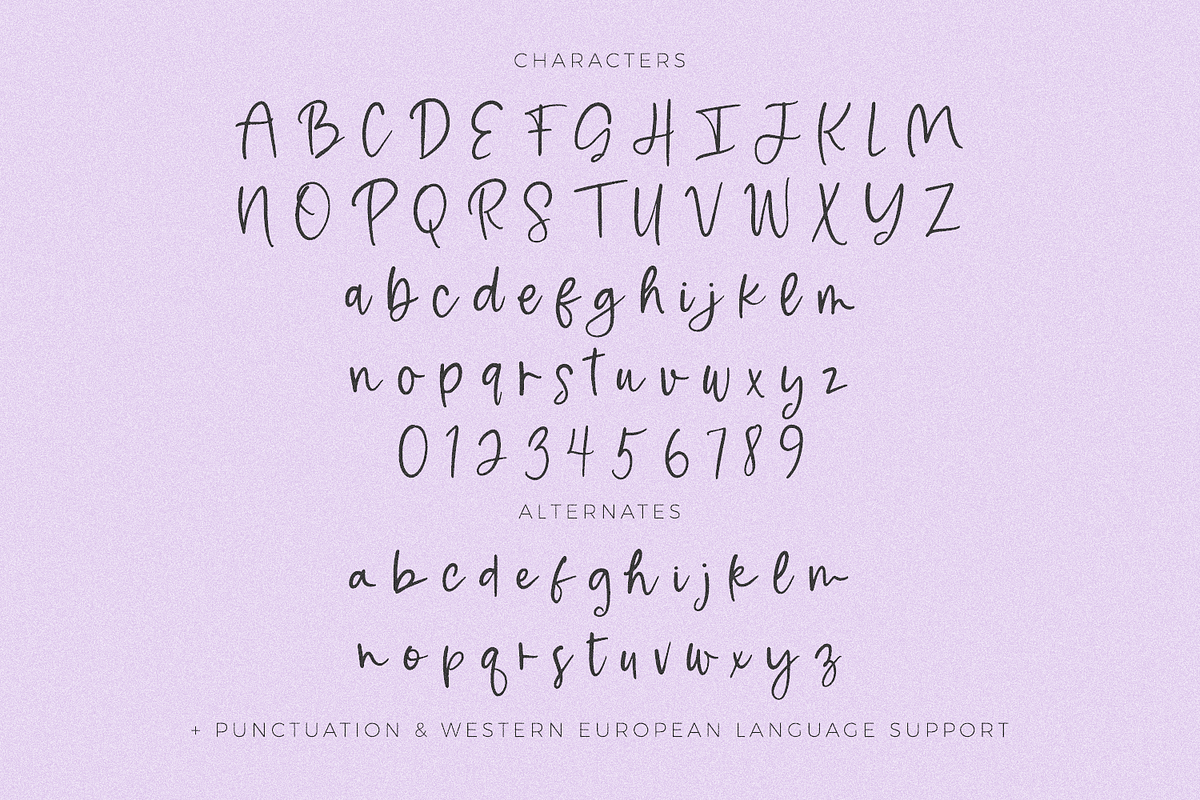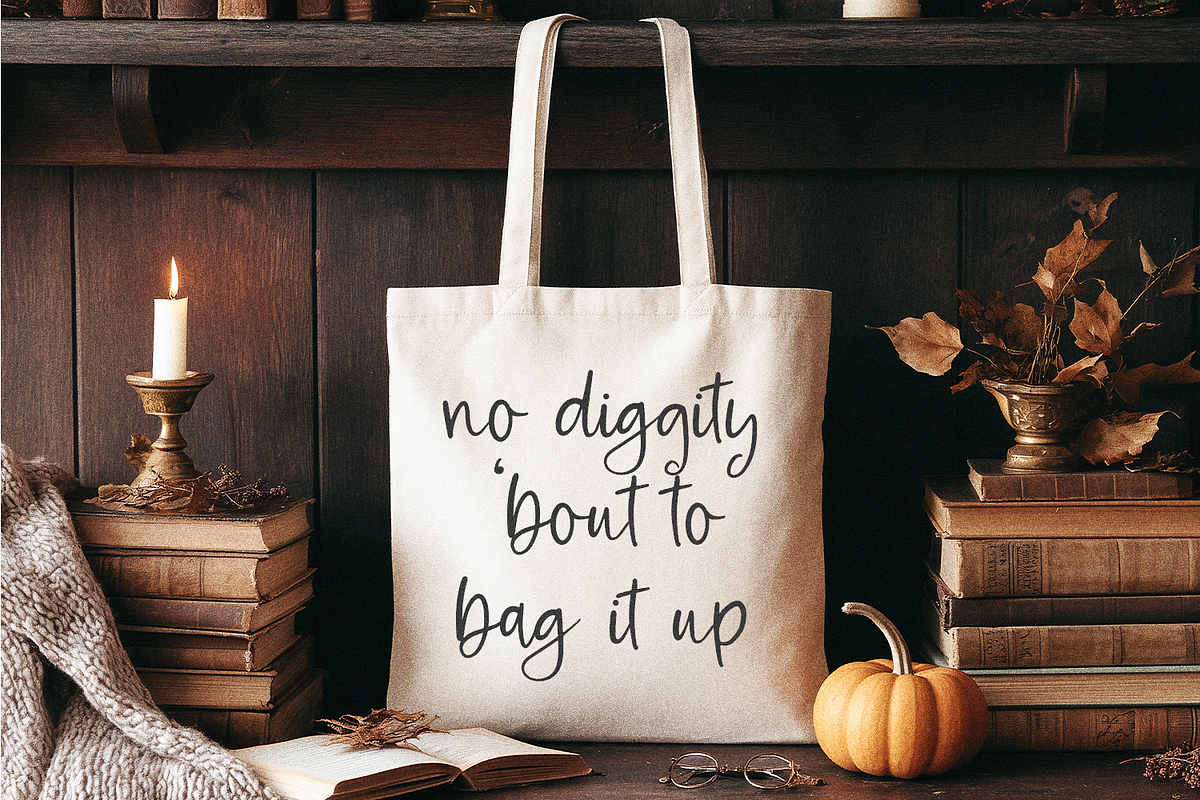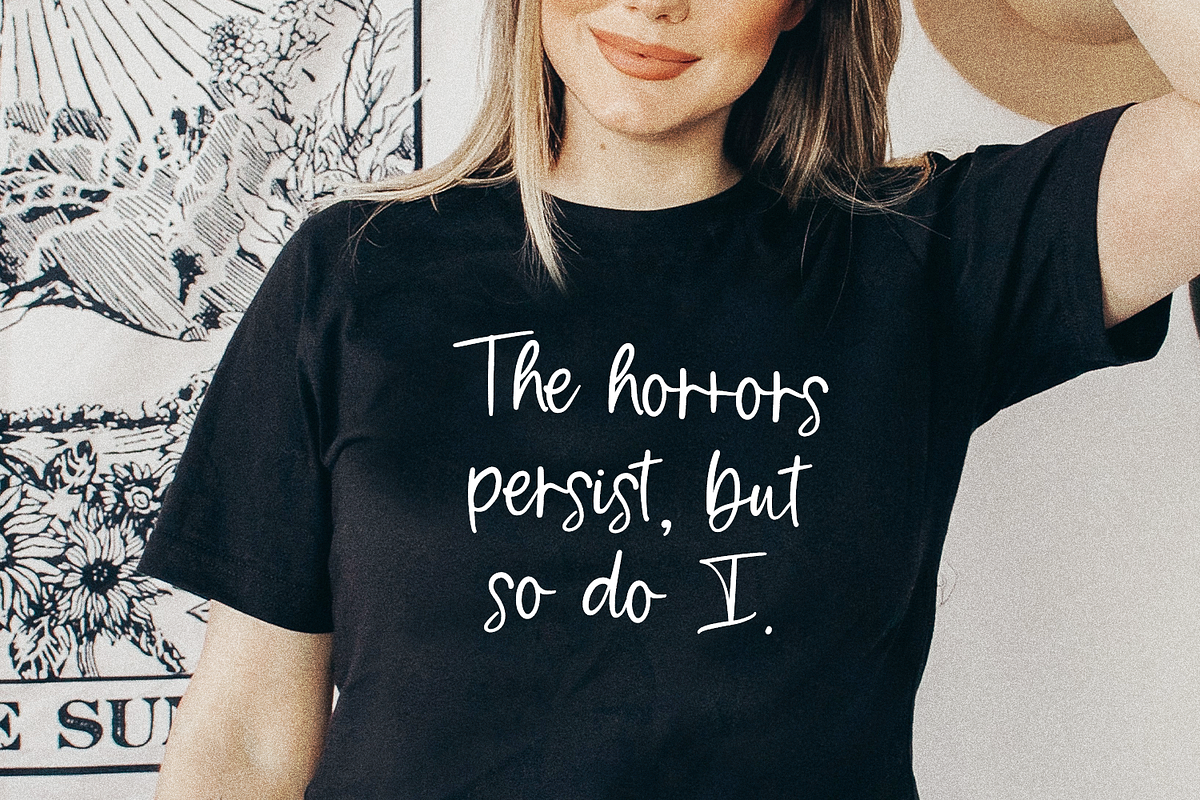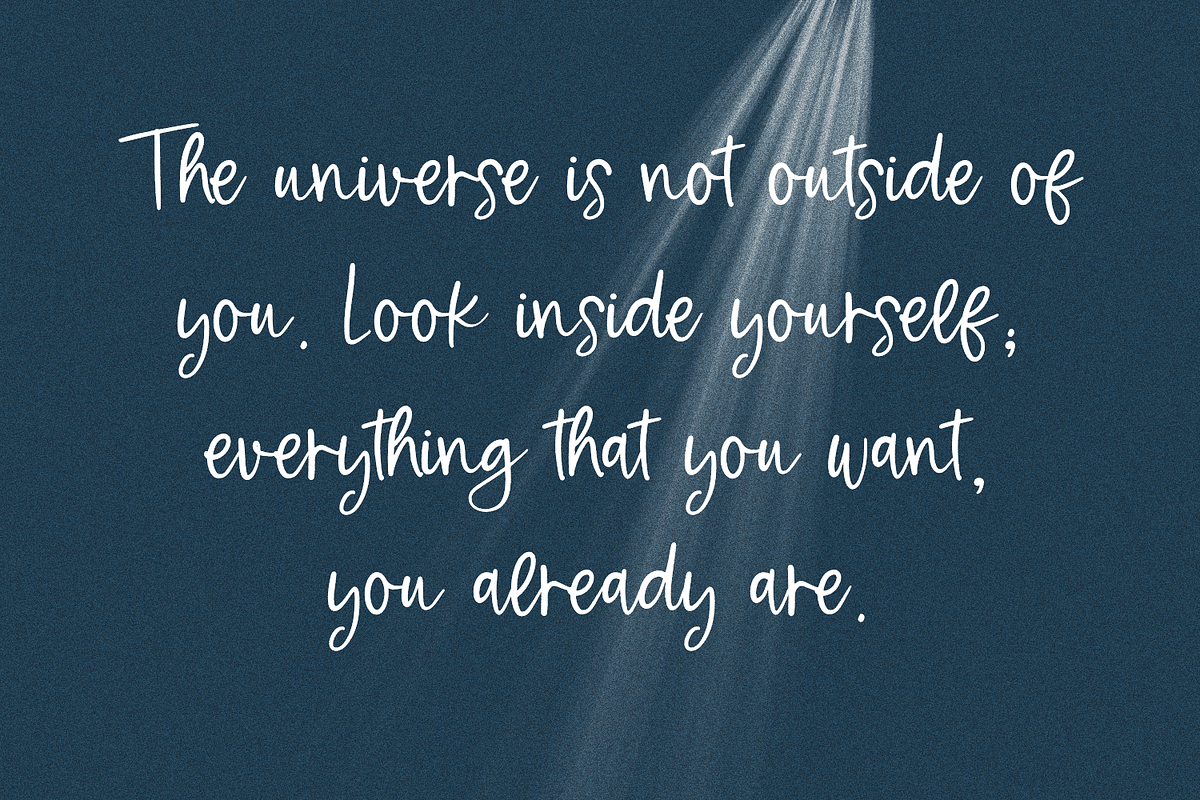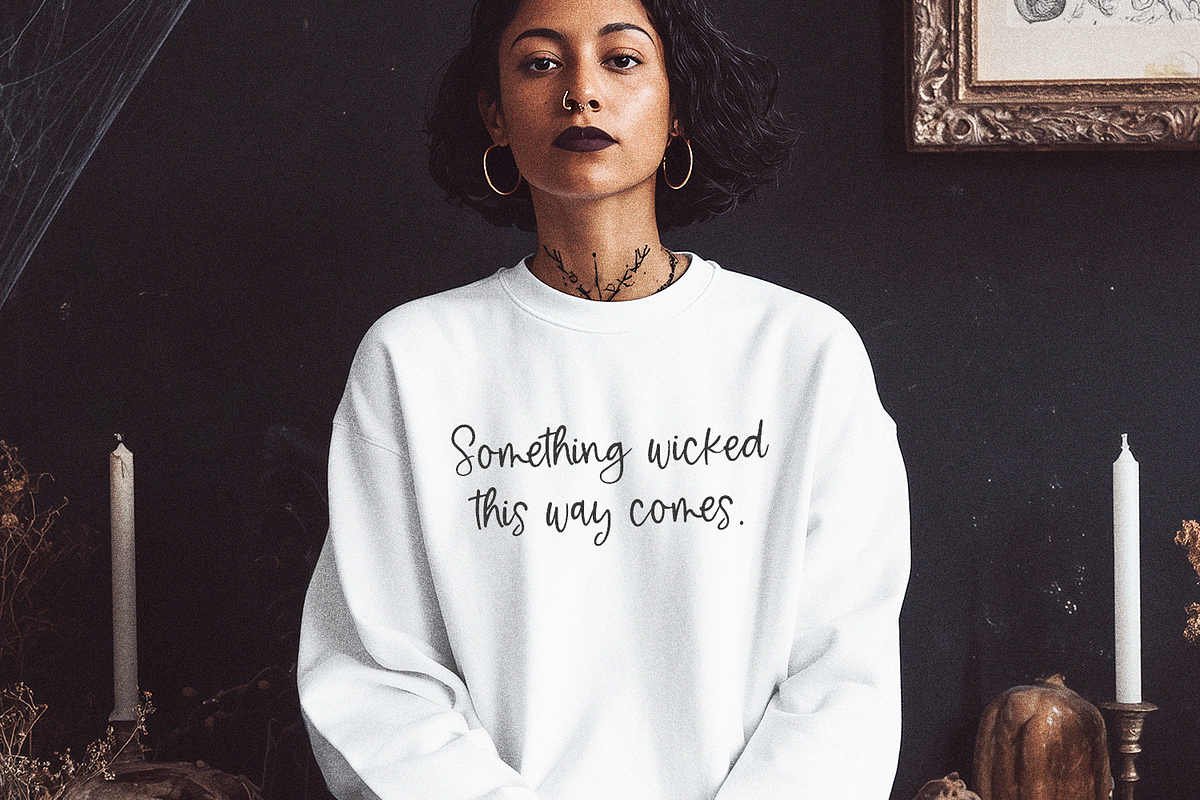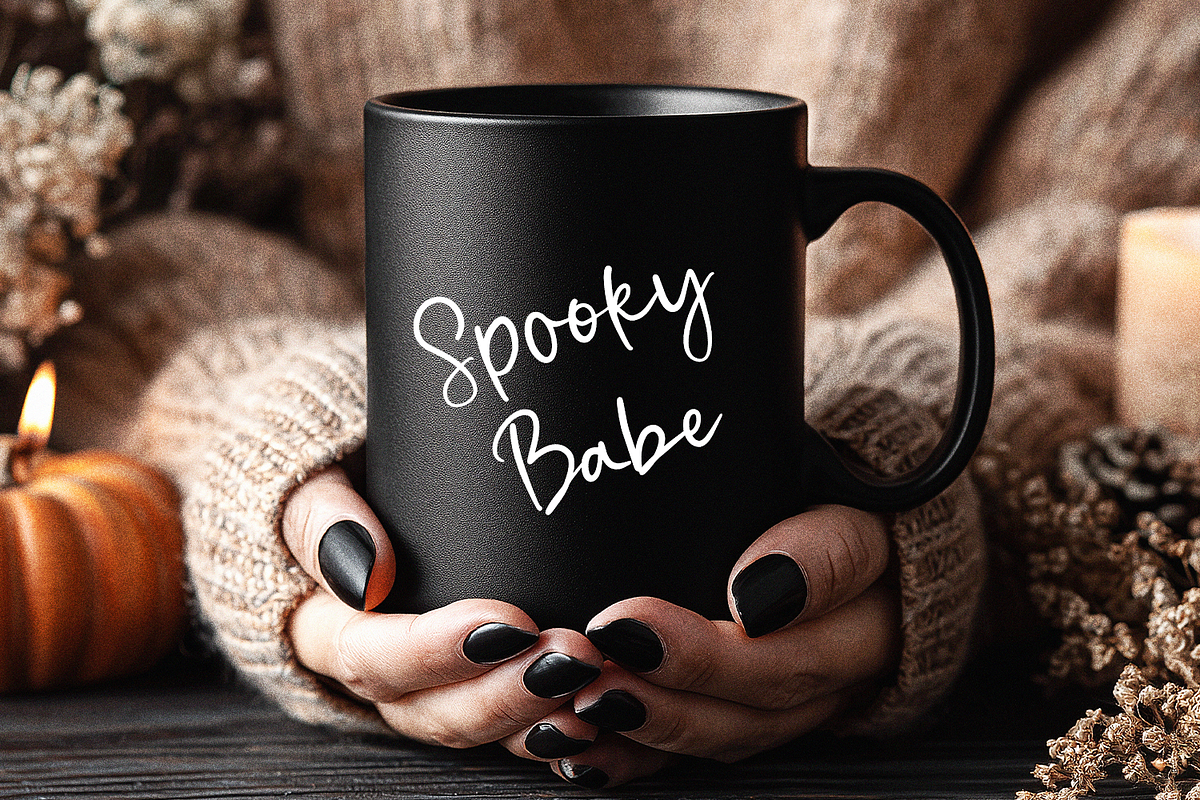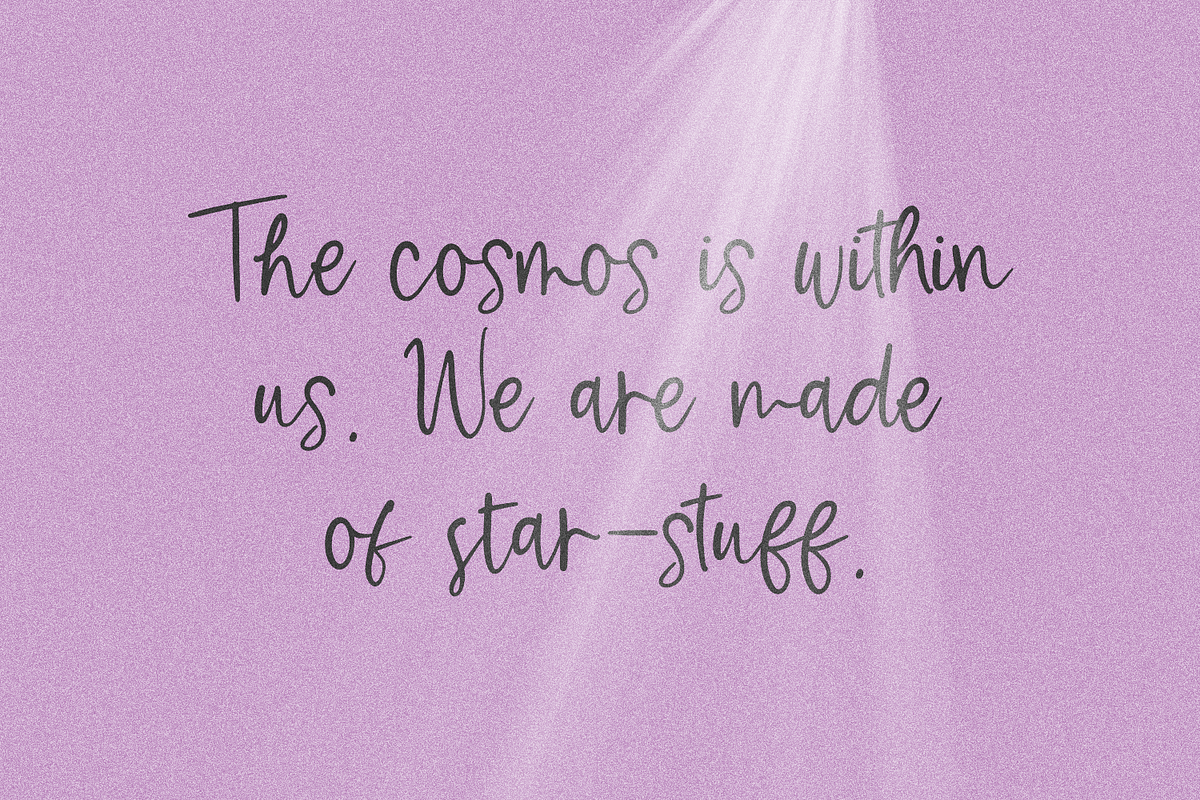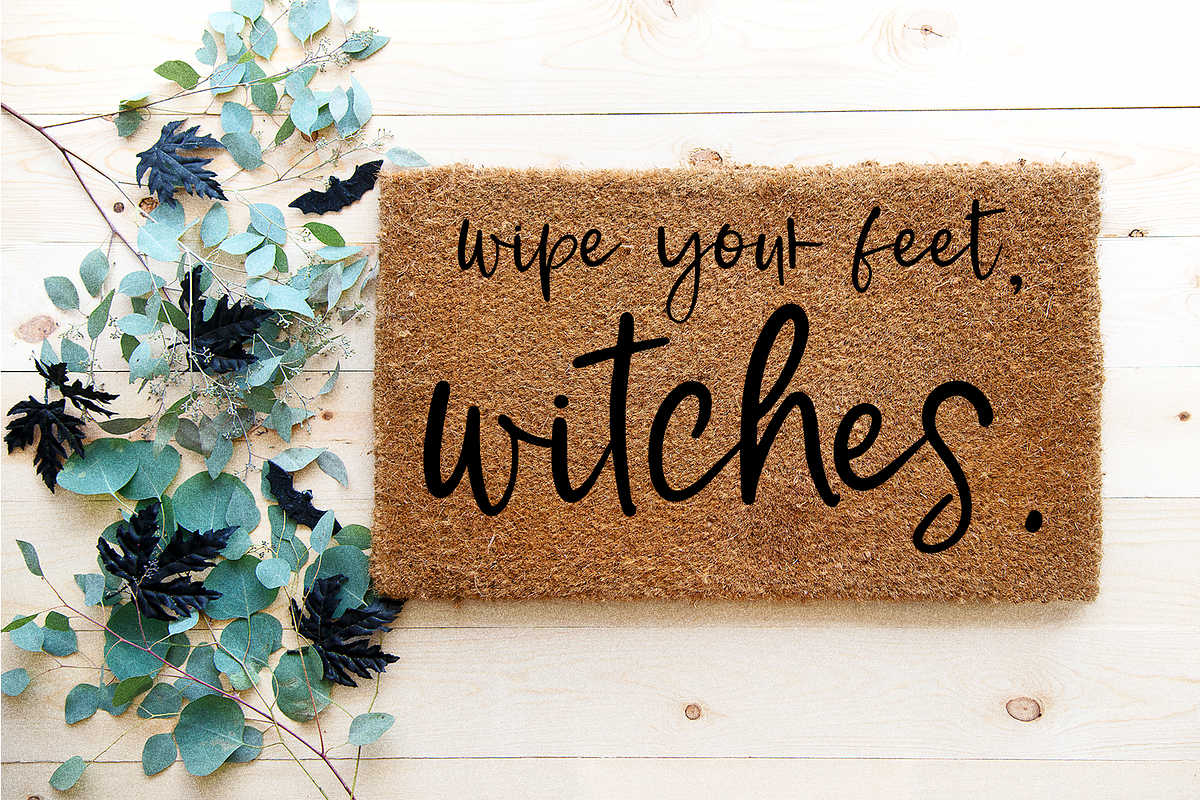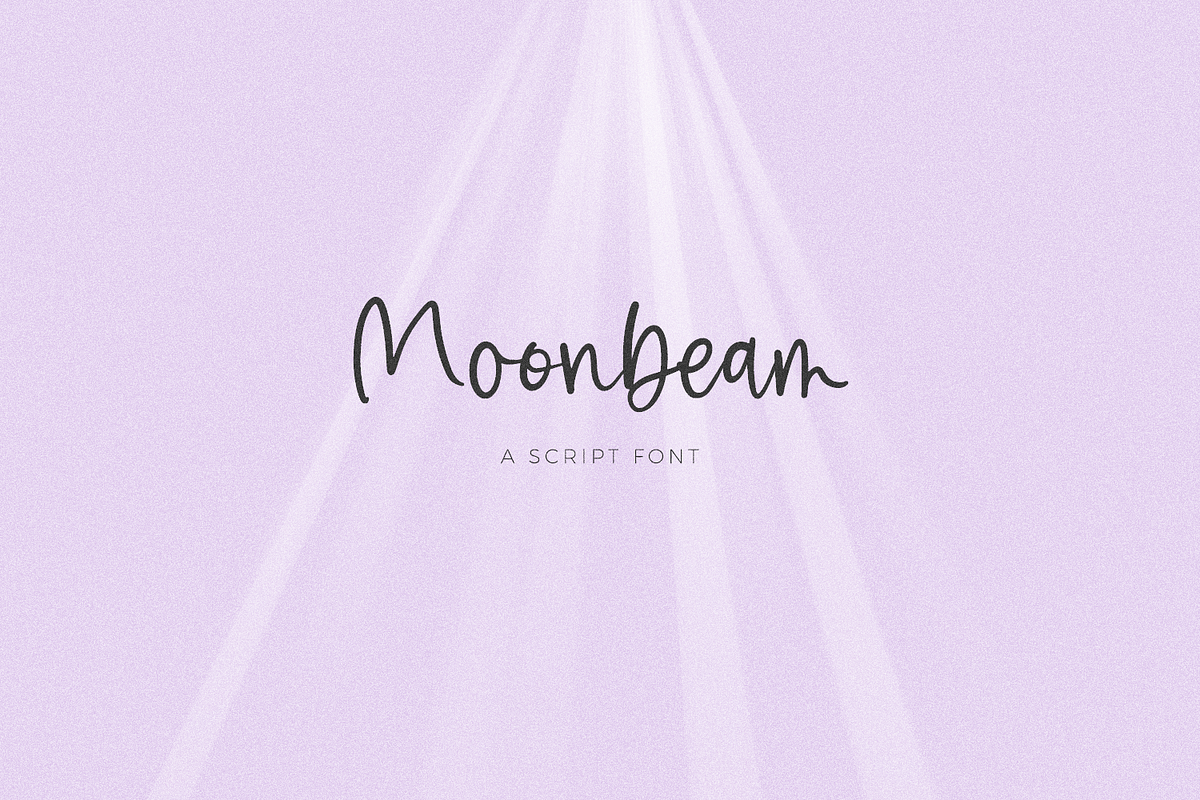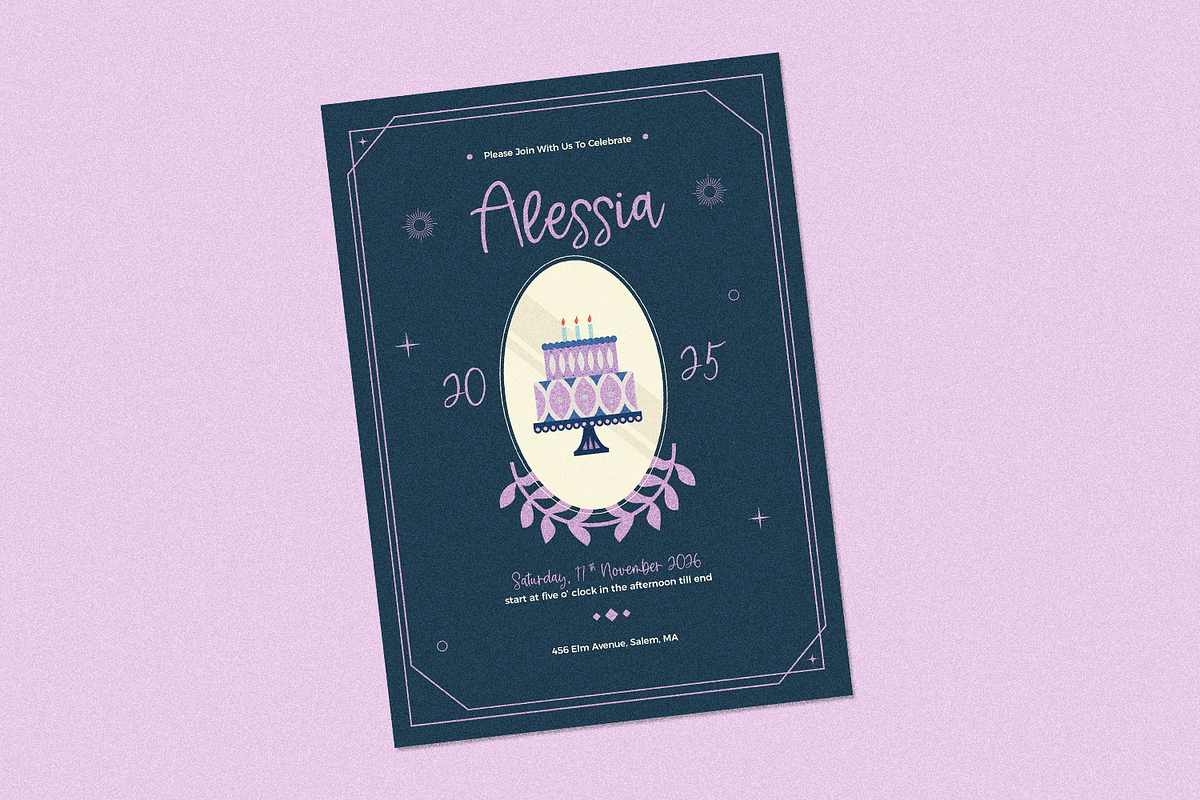
Moonbeam Script
Moonbeam Script is a handwritten font. Moonbeam has a casual, effortless aesthetic, and also includes a set of alternate characters! This font is perfect for logos & branding, greeting cards, painted banners, digital planners, note-taking apps, Canva, Cricut projects, Silhouette projects, designing SVG files, laser cutting projects, & more.
Moonbeam Script includes:
- full upper + lowercase characters
- numbers + punctuation
- 26 alternate characters - a-z
- Western European language support - English, French, Spanish, Portuguese (Brazil), Portuguese (Portugal), Italian, German (Germany), German (Austria), Dutch, Danish, Swedish, Norwegian (Bokmål and Nynorsk), Finnish, Icelandic, Irish, Welsh